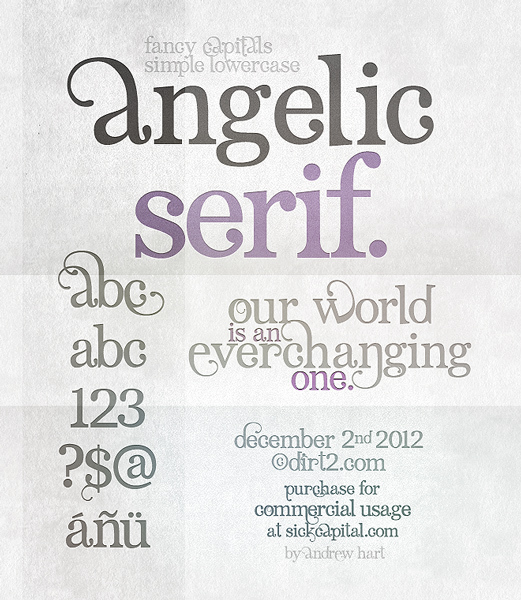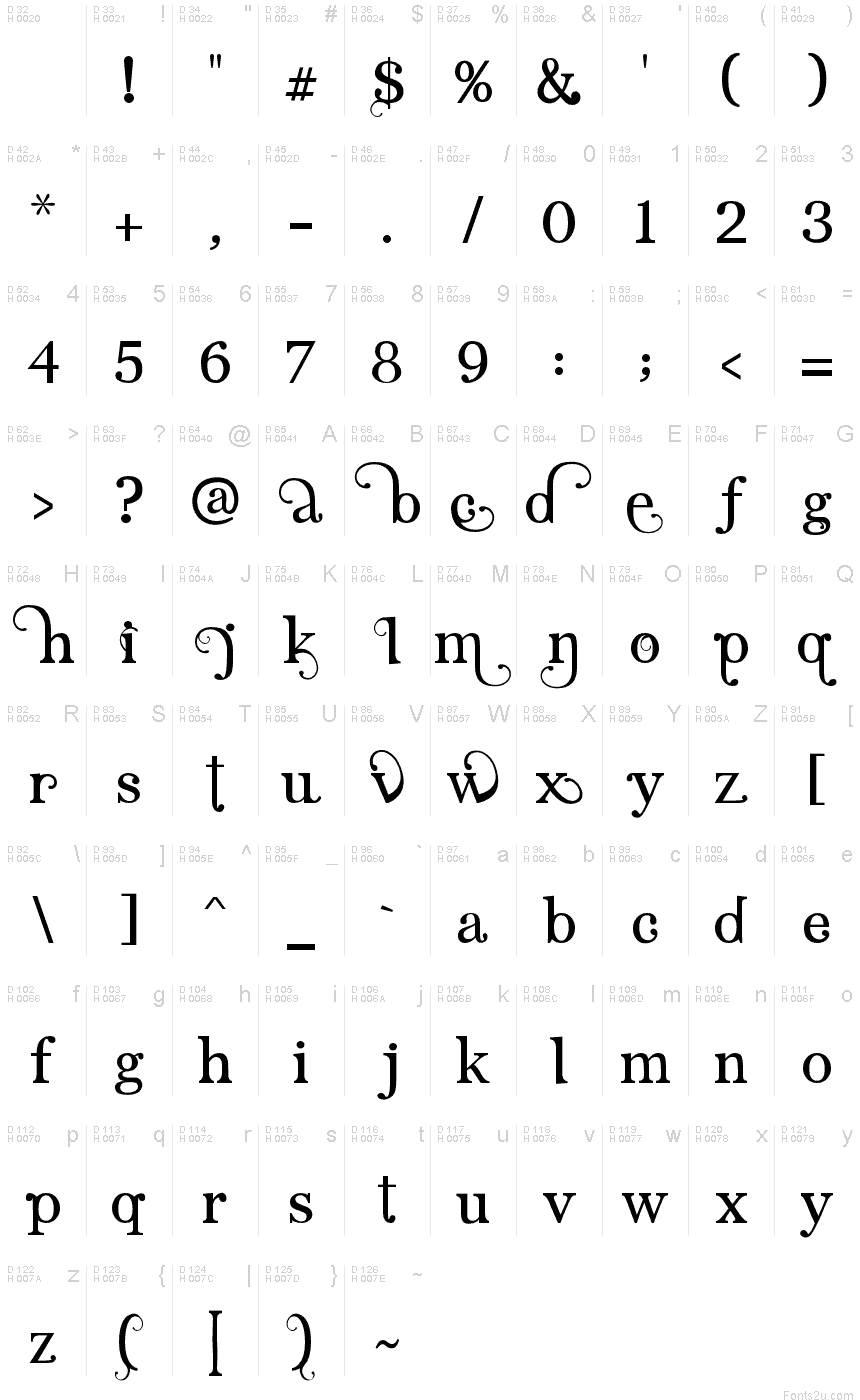
Angelic Serif
Angelic Serif, credited to Dirt2.com and SickCapital, is a free decorative serif display font with a theatrical air and the refined drama of high-fashion lettering. Extreme thick-thin strokes make the letters tall and poised, yet the font's most memorable feature is its long curling flourishes, which loop from several forms like precise penwork and lend an eccentric note to the otherwise formal structure.
Delicate floral line art directly echoes those curls across perfume packaging and wedding invitations. Fashion editorials and cosmetics branding offer a sharper setting, where the oversized flourishes can become a recognizable product motif instead of incidental decoration.